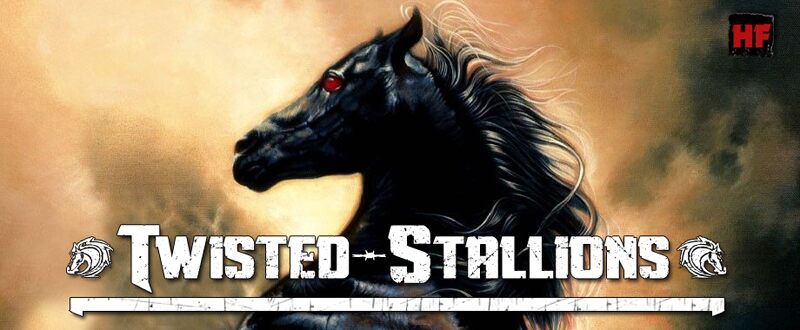
Twisted Stallions by Guilhem Greco is a free eroded display font with massive, tightly packed capitals and a dark modern Gothic edge. Deep triangular cuts sharpen the already battered silhouettes.
Designers working in metal, motorsport, or action entertainment will find it suited to album covers, event posters, and game title screens. The dense weight resembles a solid slab scarred by scraping, a useful match for aggressive industrial subjects. Its repeated scratches and chipped openings can also echo distressed photography, worn machinery, or damaged signage.